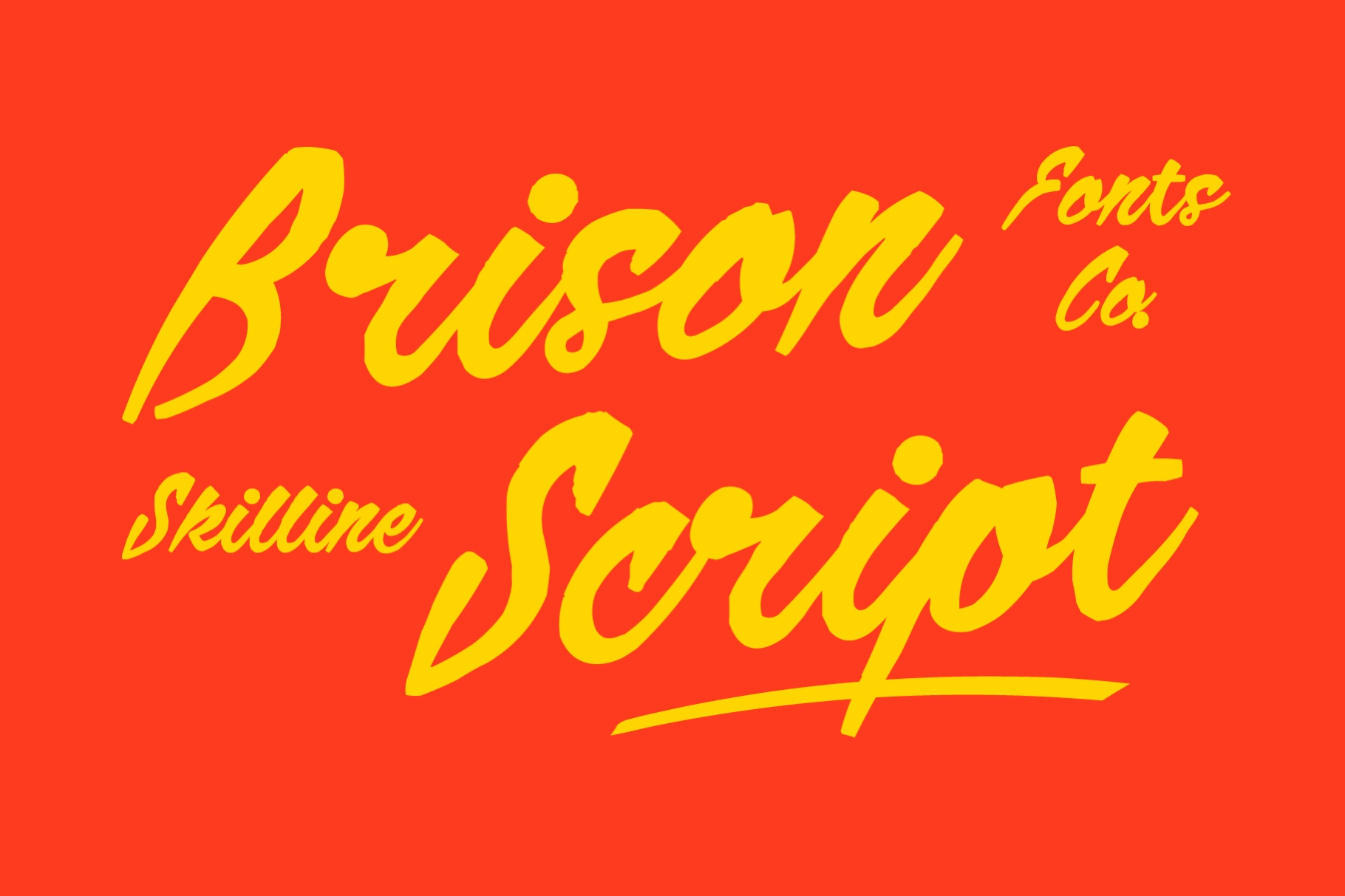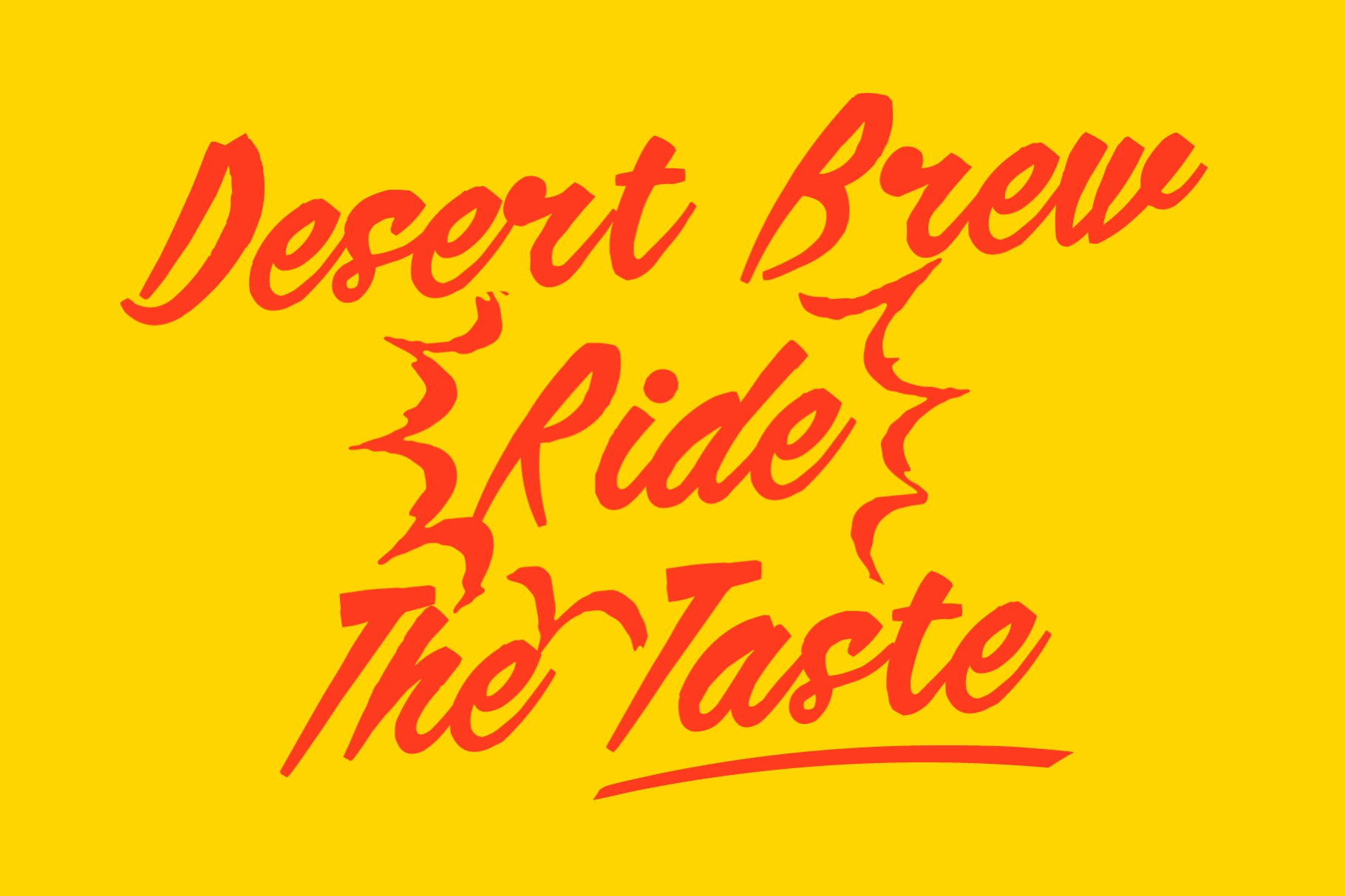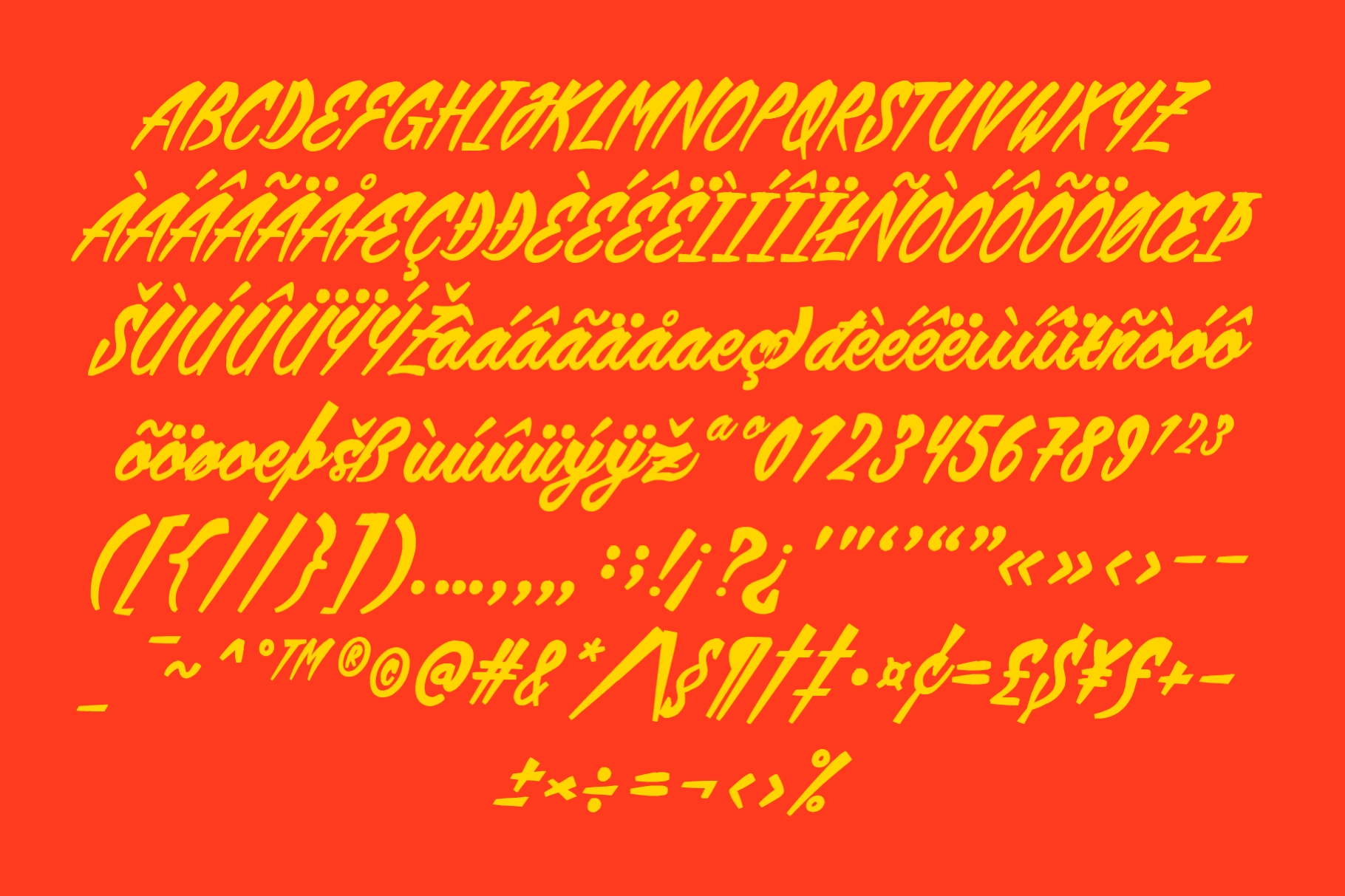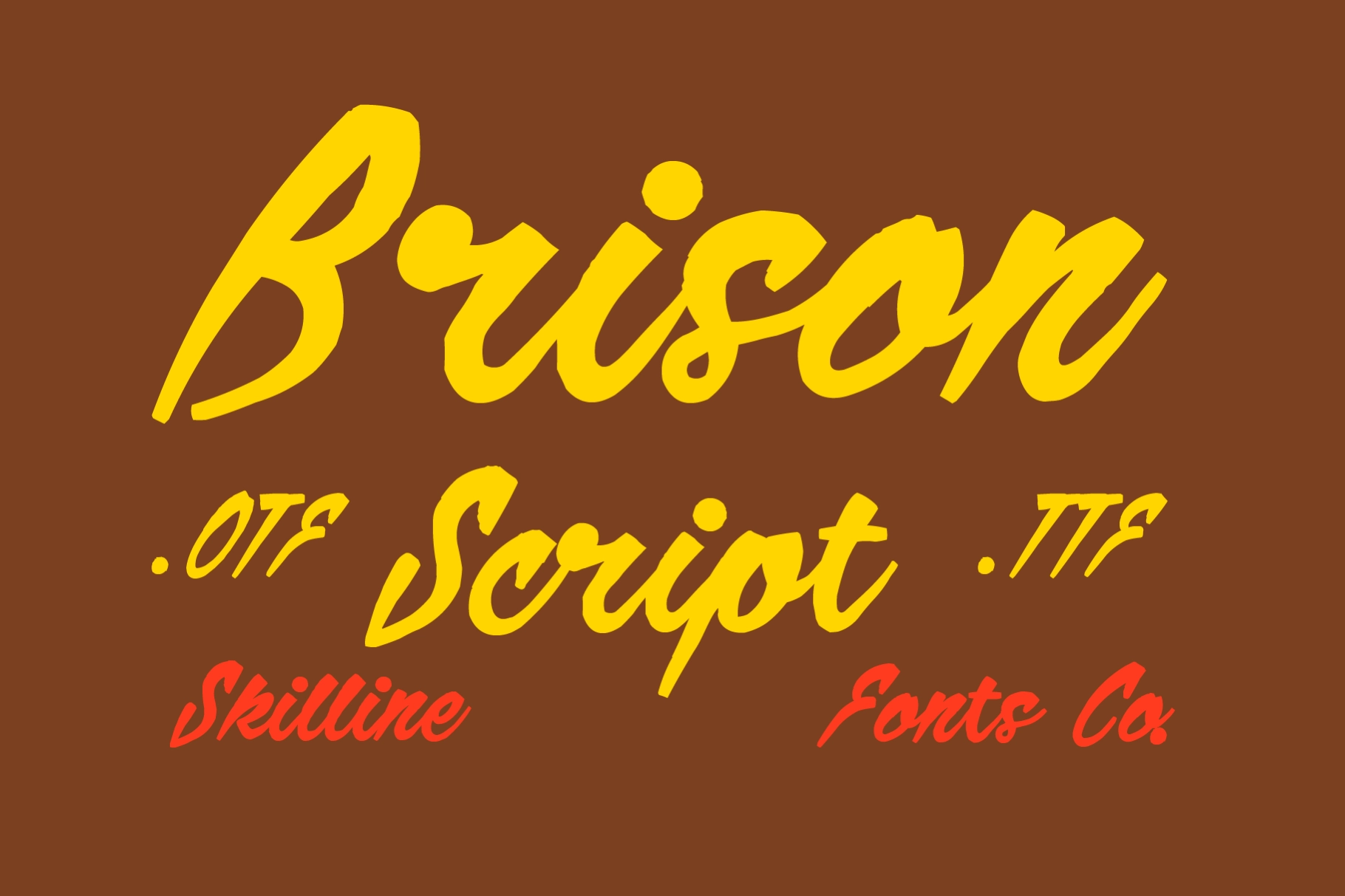
SFC Brison - Retro Brush Script Font
SFC Brison Script
This retro script typeface brings bold brush movement, chunky curves, and a fast hand-painted rhythm straight from roadside signs, smokehouse menus, and vintage Americana graphics. Its energetic strokes give branding and display typography a loud, sun-baked character with plenty of commercial punch.